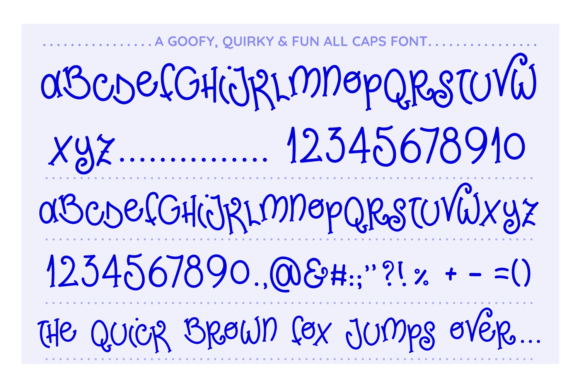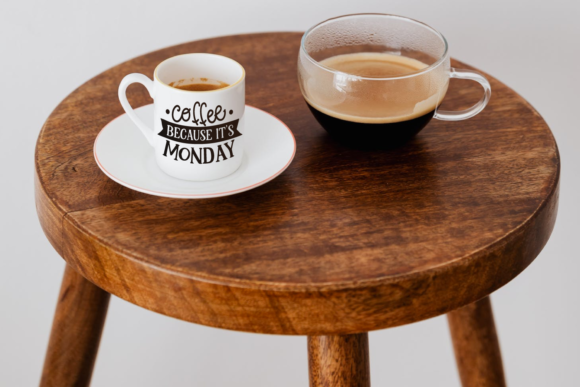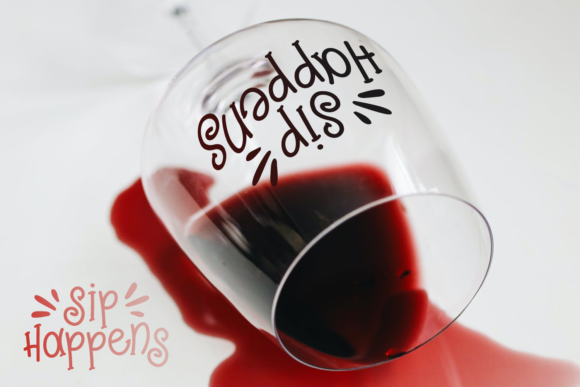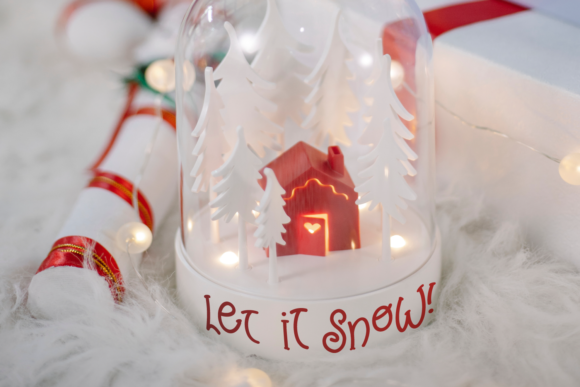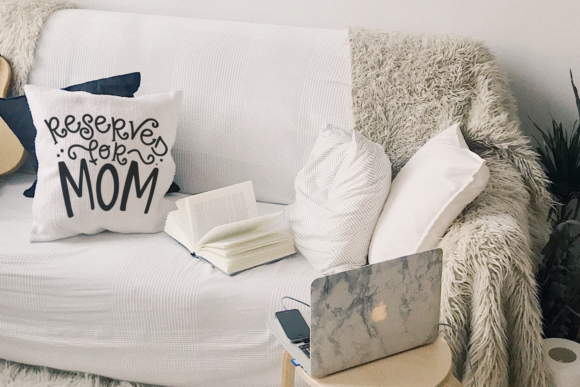
Introduction to Poky Tall Font
Have you ever been browsing through design inspiration boards and stumbled upon a font so quirky and charming that you just can’t help but imagine it on your next creative project? That’s exactly what happened to me when I discovered the Poky Tall Font. Its goofy and curly design is an instant conversation starter, making it the perfect choice for anyone looking to add a touch of whimsy to their work.
As a designer, I can attest to the value of having high-quality design resources at your fingertips. And let me tell you, the Poky Tall Font is a gem. With its transparent background and free download option, it’s an absolute must-have for anyone looking to elevate their design game. Whether you’re creating gorgeous wedding invitations, beautiful stationery art, or eye-catching social media posts, this font is sure to bring your designs to life.
Key Features of Poky Tall Font
- High-quality design resource ideal for creative projects, offering a unique and modern aesthetic.
- Poky Tall Font is available in a single weight, perfect for creating a cohesive visual identity in designs.
- The font is designed to be highly legible, even at smaller sizes, making it ideal for body text and captions.
Honest Review: Poky Tall Font
I recently had the chance to experiment with the Poky Tall Font for a creative project and I must say it’s been a delight to work with. This free download has been a game-changer for my design needs.
- What works well: ✨ High-quality design, perfect for titles and headings, and it’s completely free! The font is highly versatile and can be used for a wide range of creative projects.
- What works well: ✨ Transparent background option, which allows for seamless integration into any design.
However, I did encounter some limitations during my project:
- ⚠️ Limited font sizes: At times, I found it difficult to use the font at very large sizes without losing its quality.
- ⚠️ Not ideal for body text: While the font is great for titles and headings, it’s not the most readable font for body text.
Overall, I’m quite impressed with the Poky Tall Font. It’s a fantastic design resource that’s perfect for those looking for a high-quality, free font. Just be mindful of its limitations and use it for the right projects.
Poky Tall Font
Tips for Getting the Most Out of Poky Tall Font
To get the most out of the Poky Tall Font, try using it in combination with a transparent background to create a sense of depth and dimensionality. You can also experiment with different font sizes and styles to create a unique and creative look.
Common Use Cases for Poky Tall Font
The Poky Tall Font is a versatile design resource that can be used in a variety of creative projects, including logos, posters, and infographics. Its high quality and unique style make it an excellent choice for designers looking to add a touch of sophistication to their work.